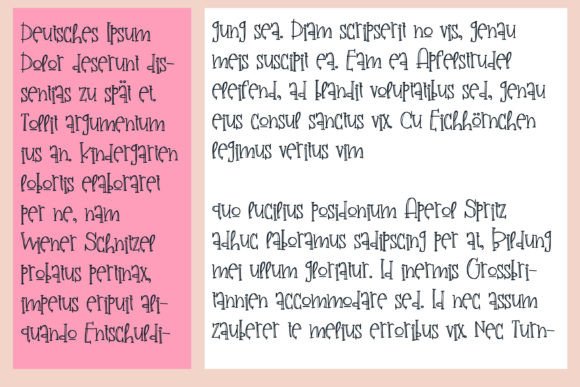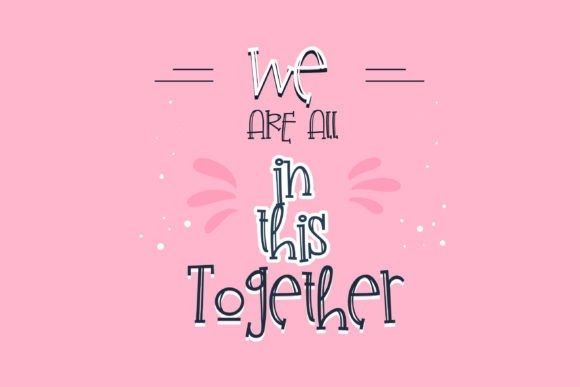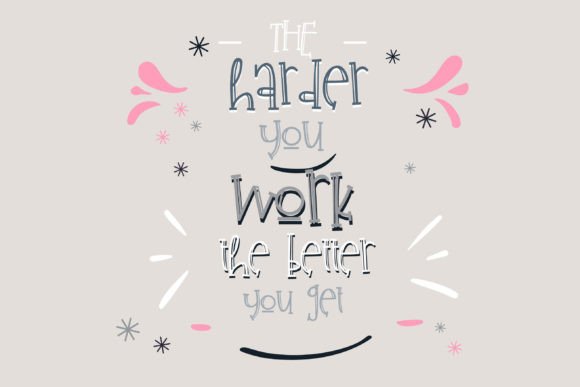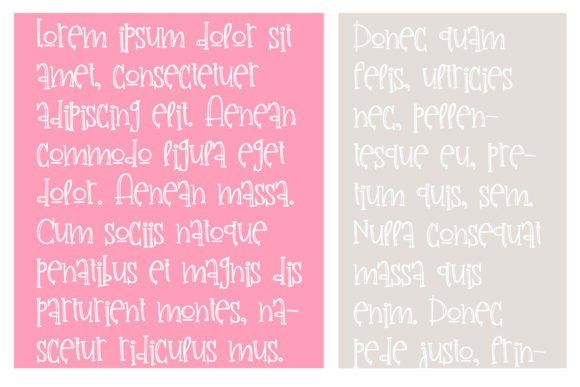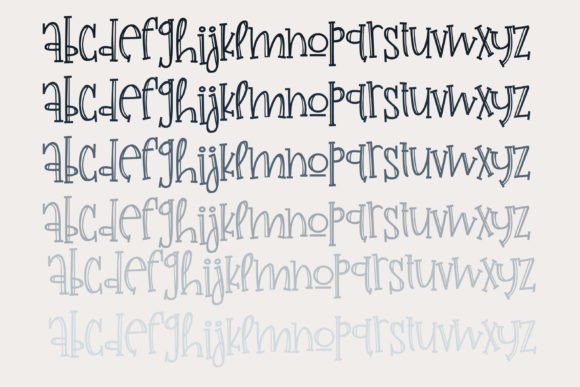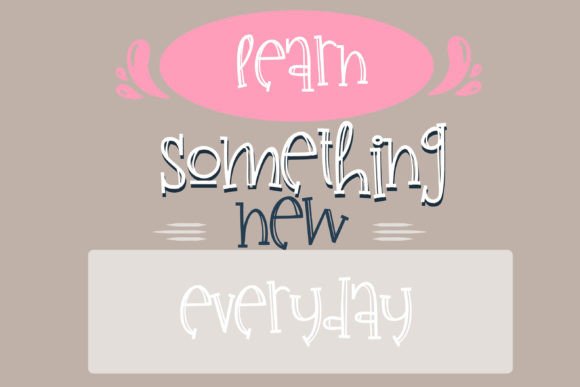
Introduction to Plaything Font
As you sit at your desk, surrounded by scattered papers and design tools, the creative spark hits – you need a unique font to elevate your project. Maybe it’s a birthday card for a loved one, or a bold headline for your latest blog post. Whatever the case, finding the perfect font can make all the difference.
Enter Plaything Font, a charming hand-written print with a double line that adds a touch of whimsy to any design. This versatile font is perfect for a wide range of applications, from greeting cards to headlines, and is sure to become a valuable addition to your design resource library.
Key Features of Plaything Font
- High-quality font design with transparent background, ideal for creative projects and design resources.
- Designed with a unique, playful style, perfect for adding a touch of whimsy to your creative project.
Honest Review: Plaything Font
As a designer, I’m always on the lookout for high-quality design resources to elevate my creative projects. Recently, I stumbled upon the Plaything Font, and I’m excited to share my honest review with you.
- ✨ High-quality design: The font is beautifully crafted with a unique, playful style that’s perfect for creative projects.
- ✨ Transparent background: The font is fully transparent, making it easy to use on any background.
However, I do have to mention some limitations:
- ⚠️ Limited font styles: While the font is beautifully designed, it’s a bit limited in terms of font styles.
- ⚠️ Not ideal for formal projects: The playful style might not be suitable for formal or professional projects.
Overall, I’m impressed with the Plaything Font. It’s a fantastic design resource for creative projects, and its transparent background makes it a breeze to use. While it may have some limitations, I think it’s well worth the free download. If you’re looking for a unique, high-quality font for your next design project, I’d definitely recommend giving Plaything Font a try.
The Plaything Font is commonly used in a variety of design projects, including: